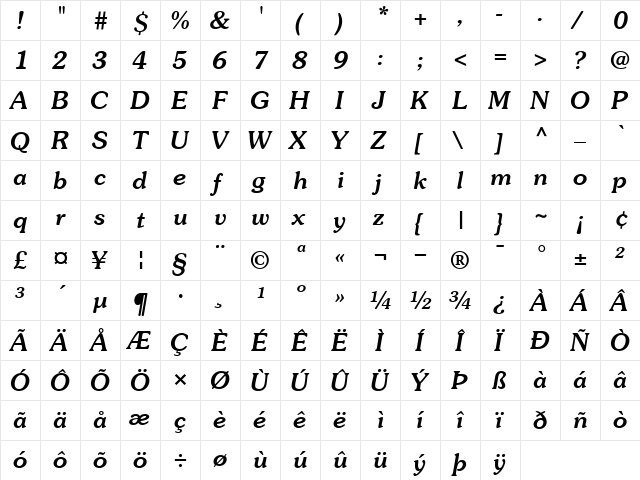
ITCSouvenir-Medium MediumItalic
Design Context for ITCSouvenir-Medium Typeface
ITCSouvenir-Medium is a composed and adaptable typeface that performs quietly and consistently across a wide range of design contexts. The dynamic lean of this cut emphasises speed and emphasis in any layout.
Pro Tip: Try ITCSouvenir-Medium for annotation and caption copy alongside an upright companion — the contrast in angle creates a dynamic but ordered typographic system.